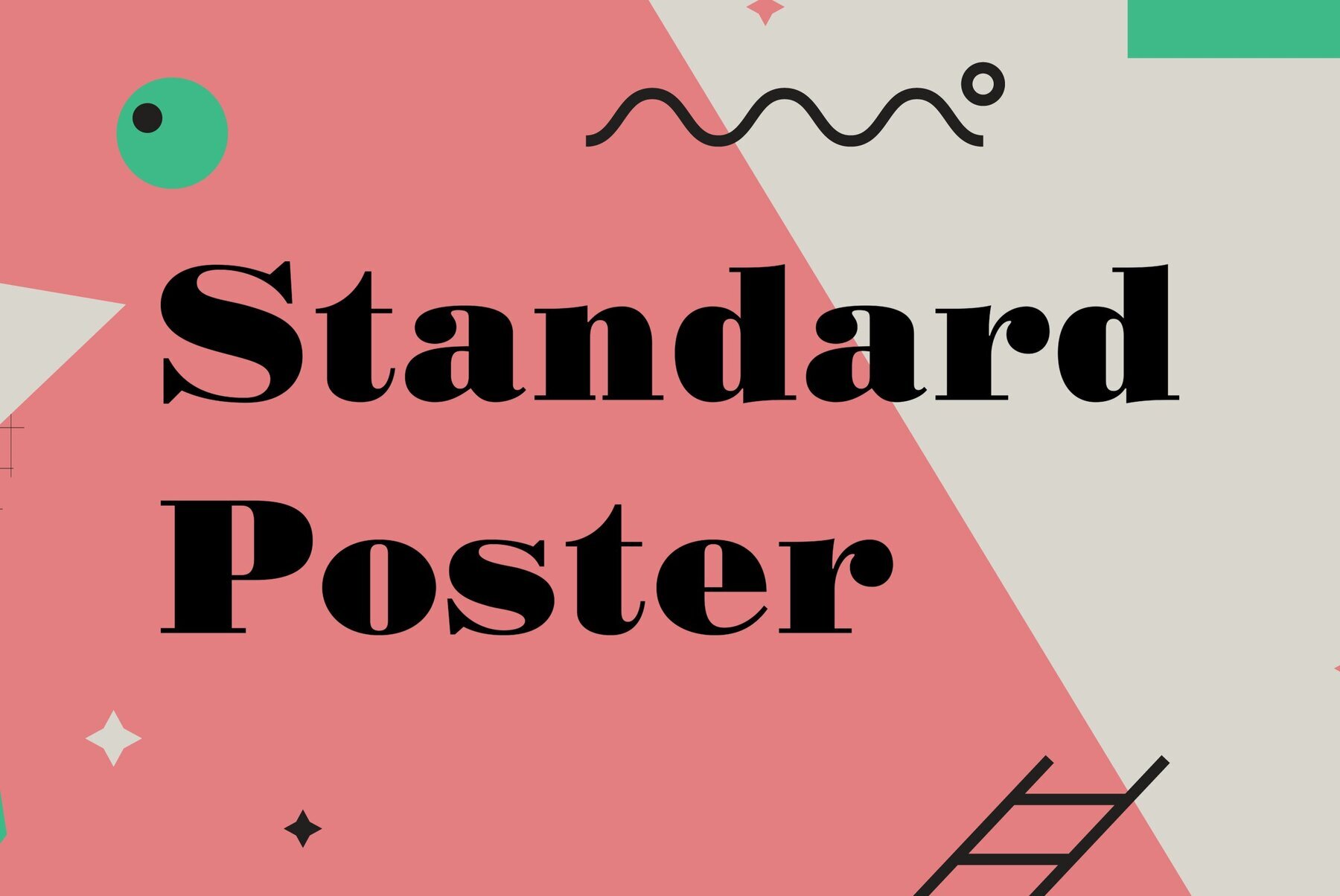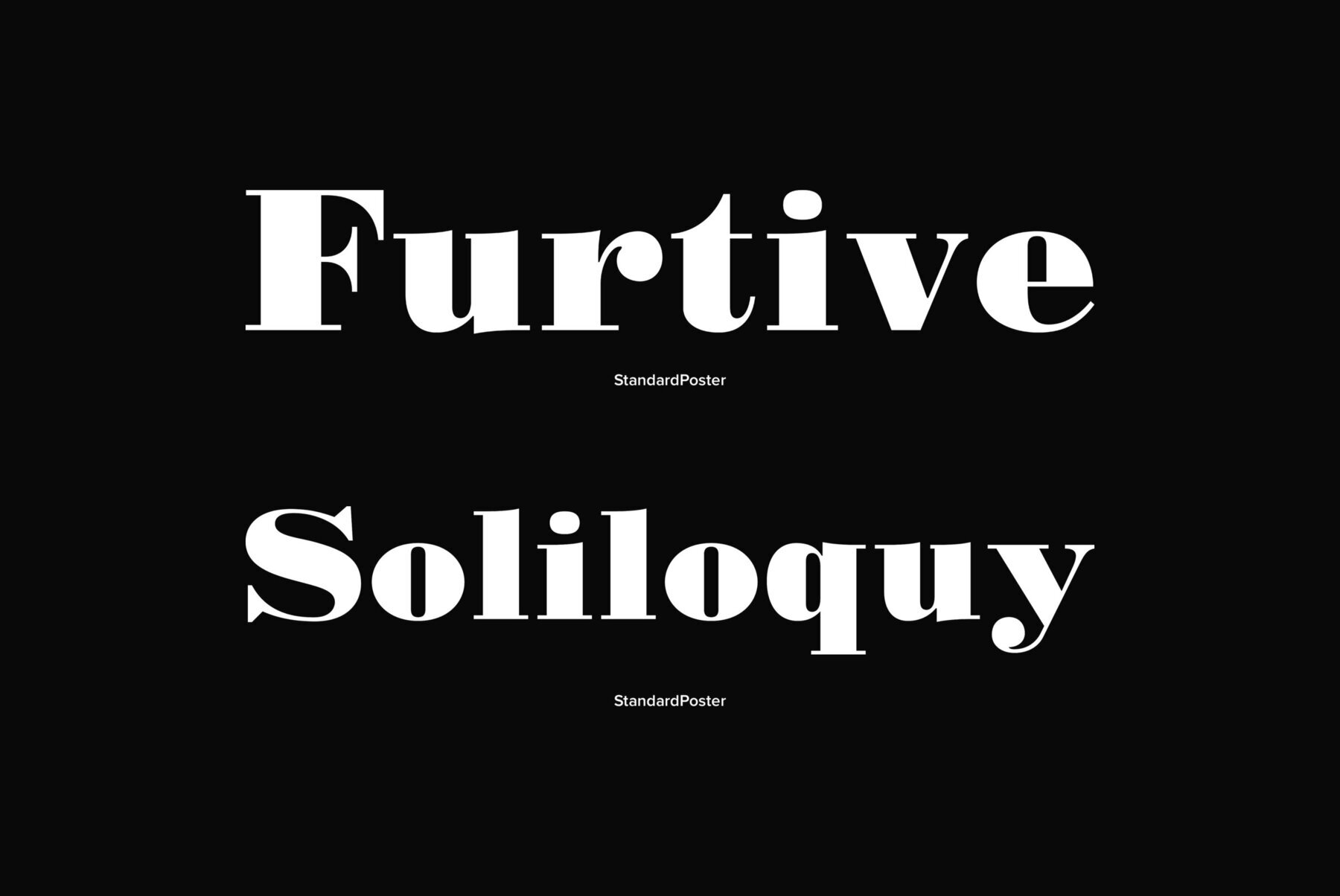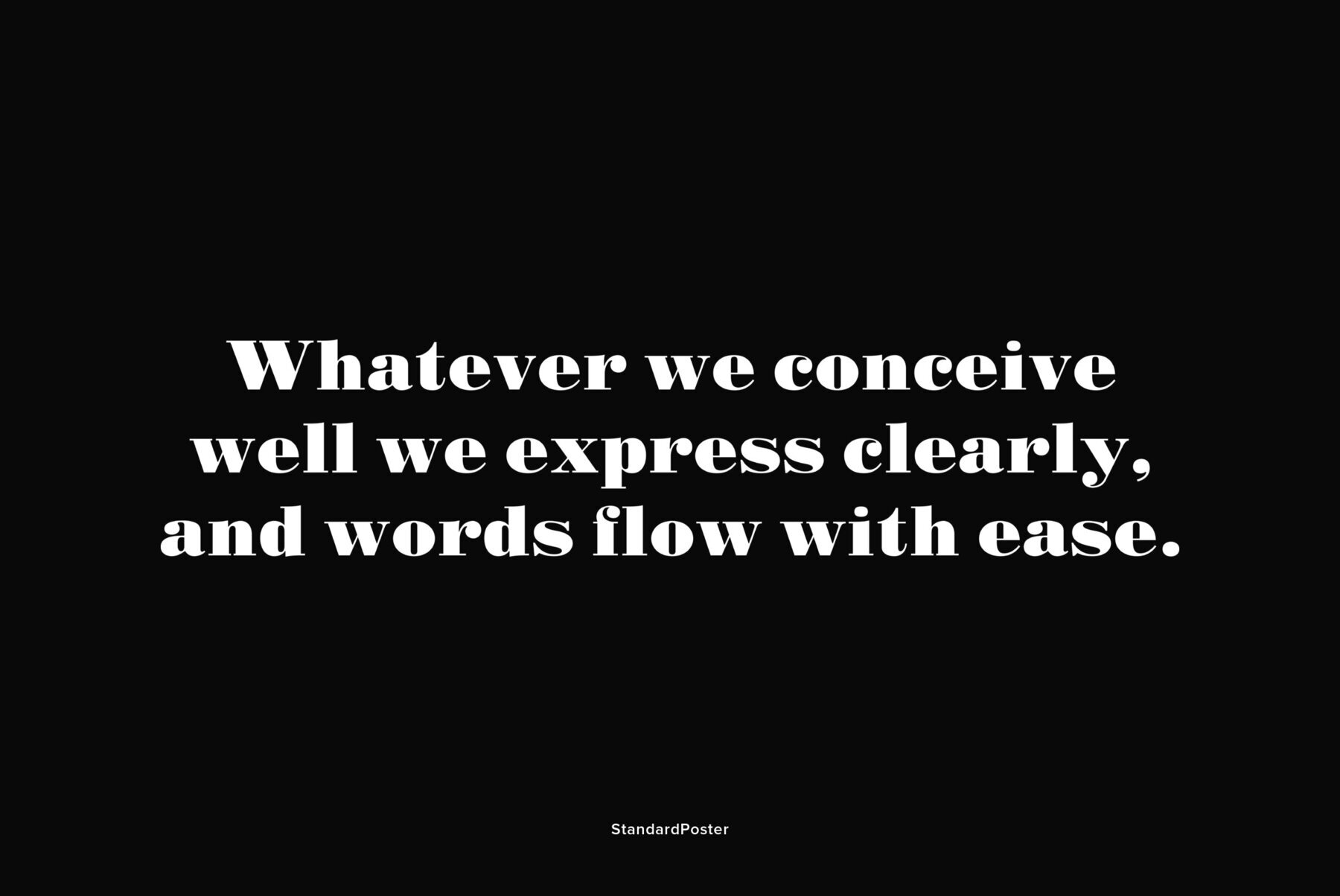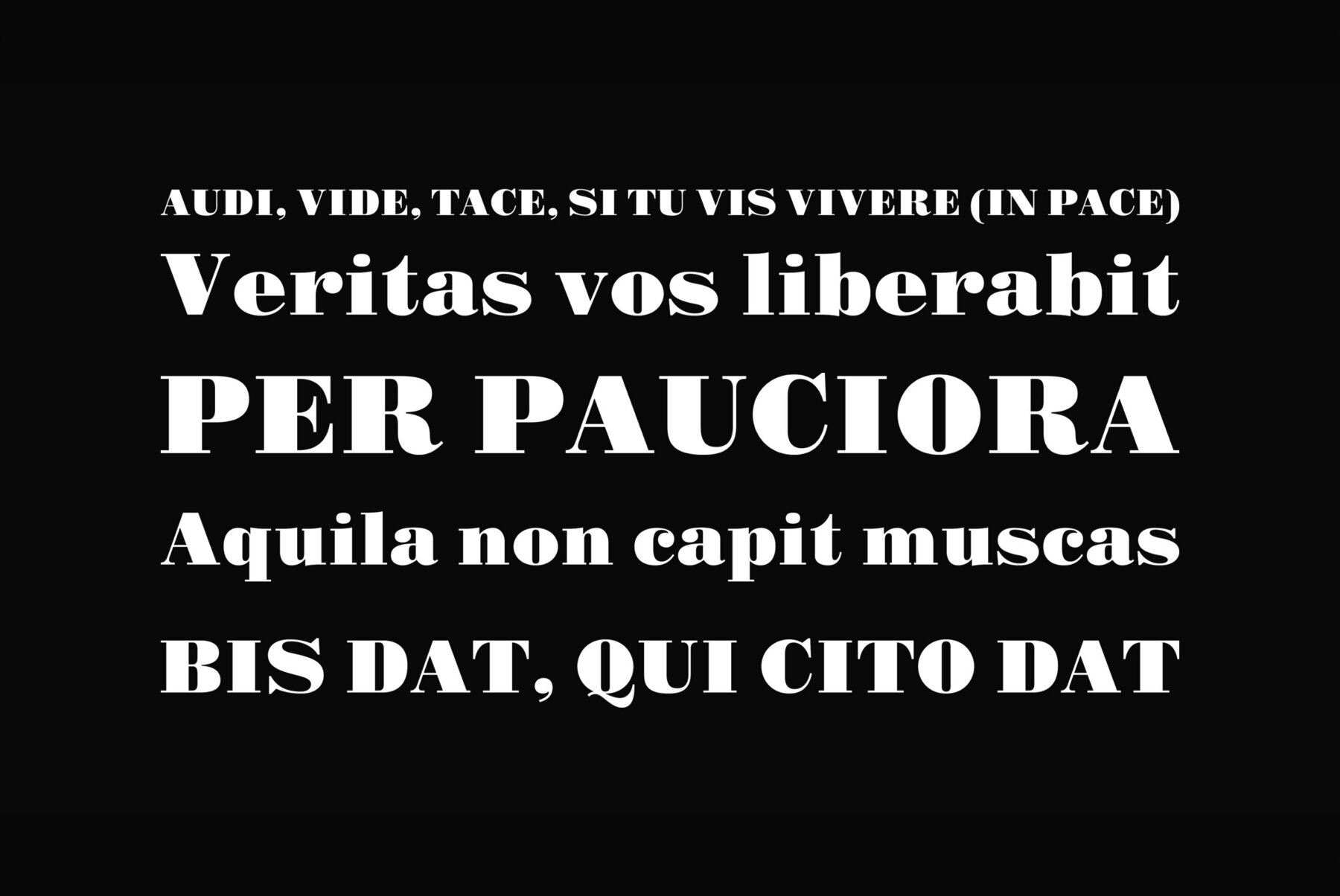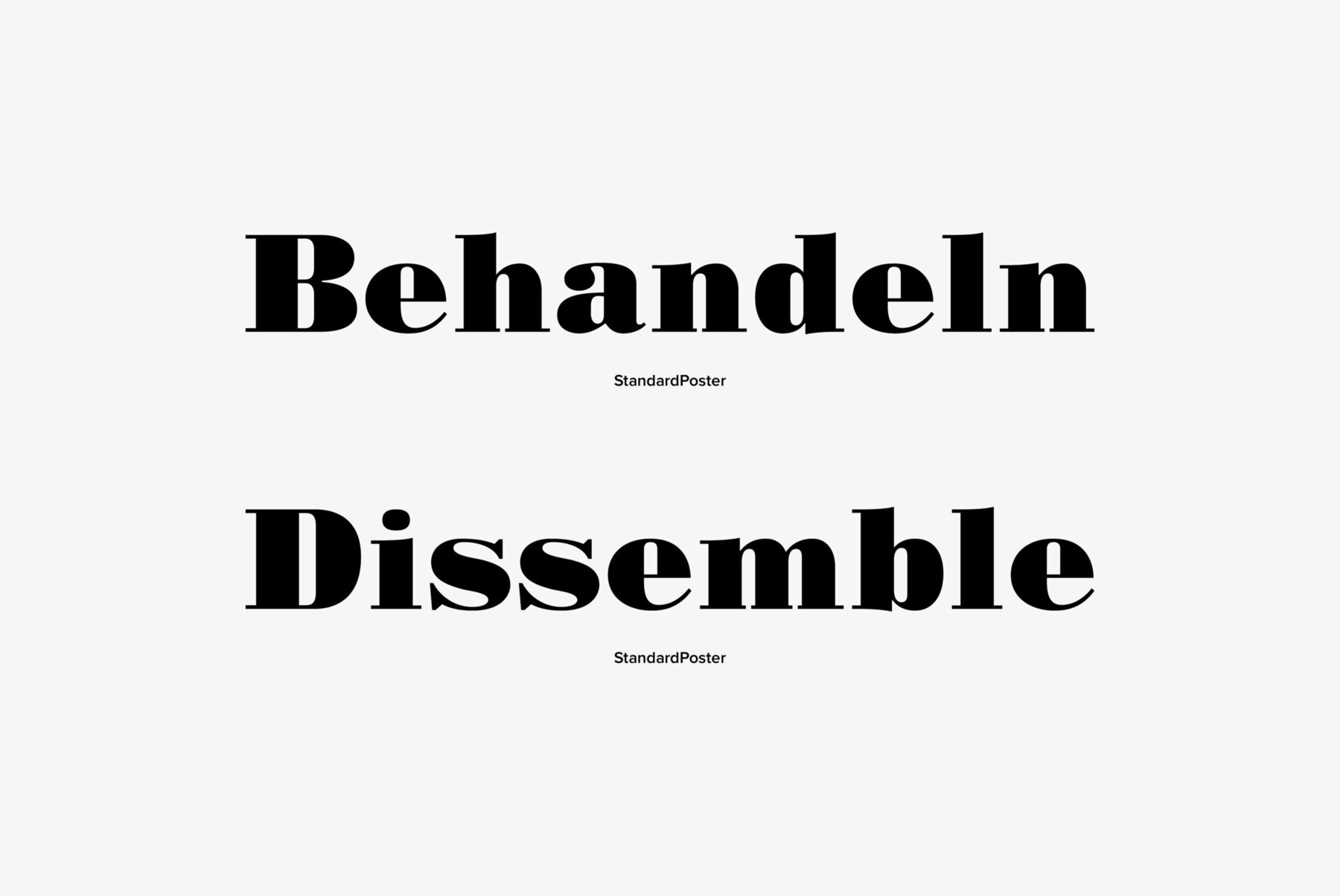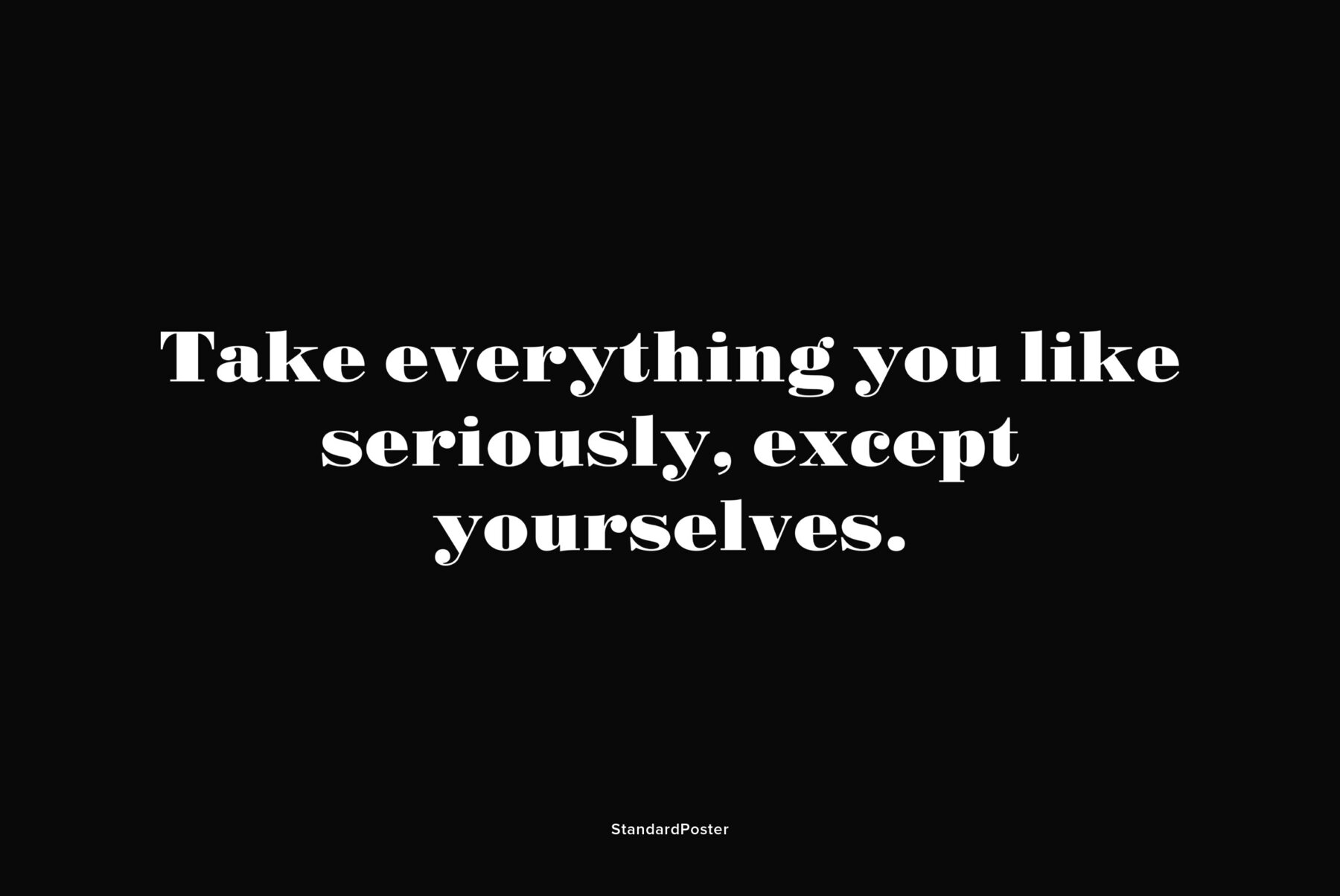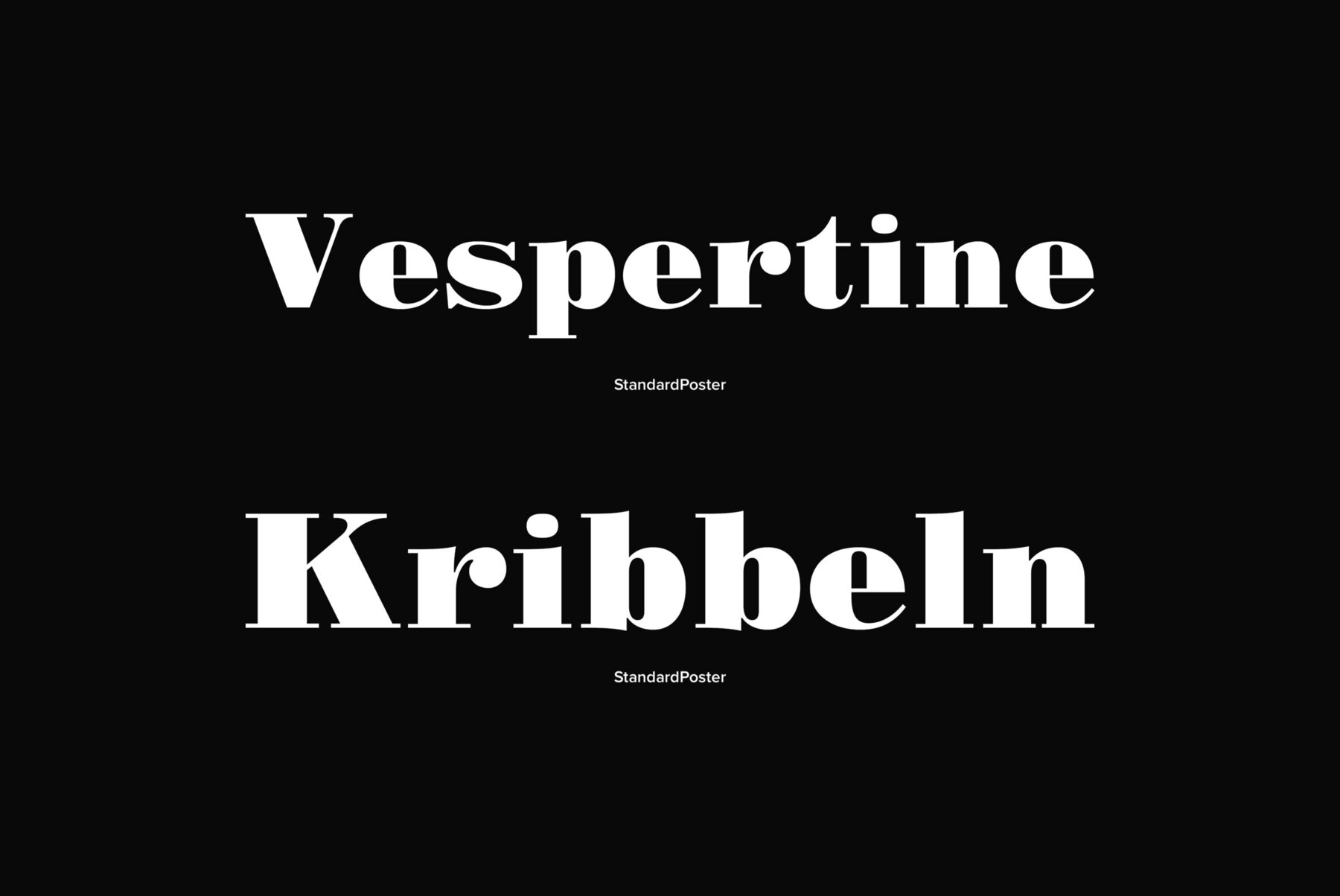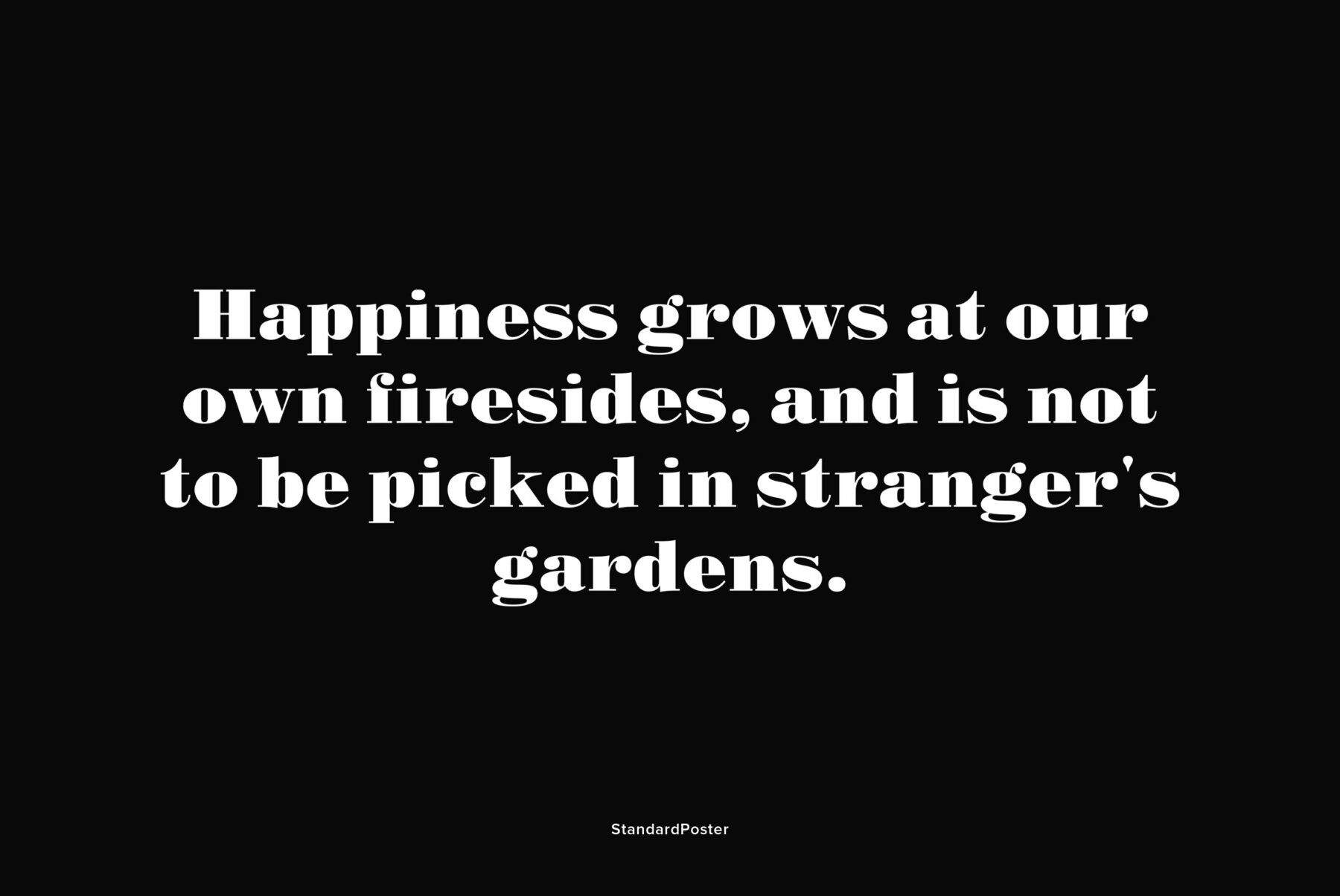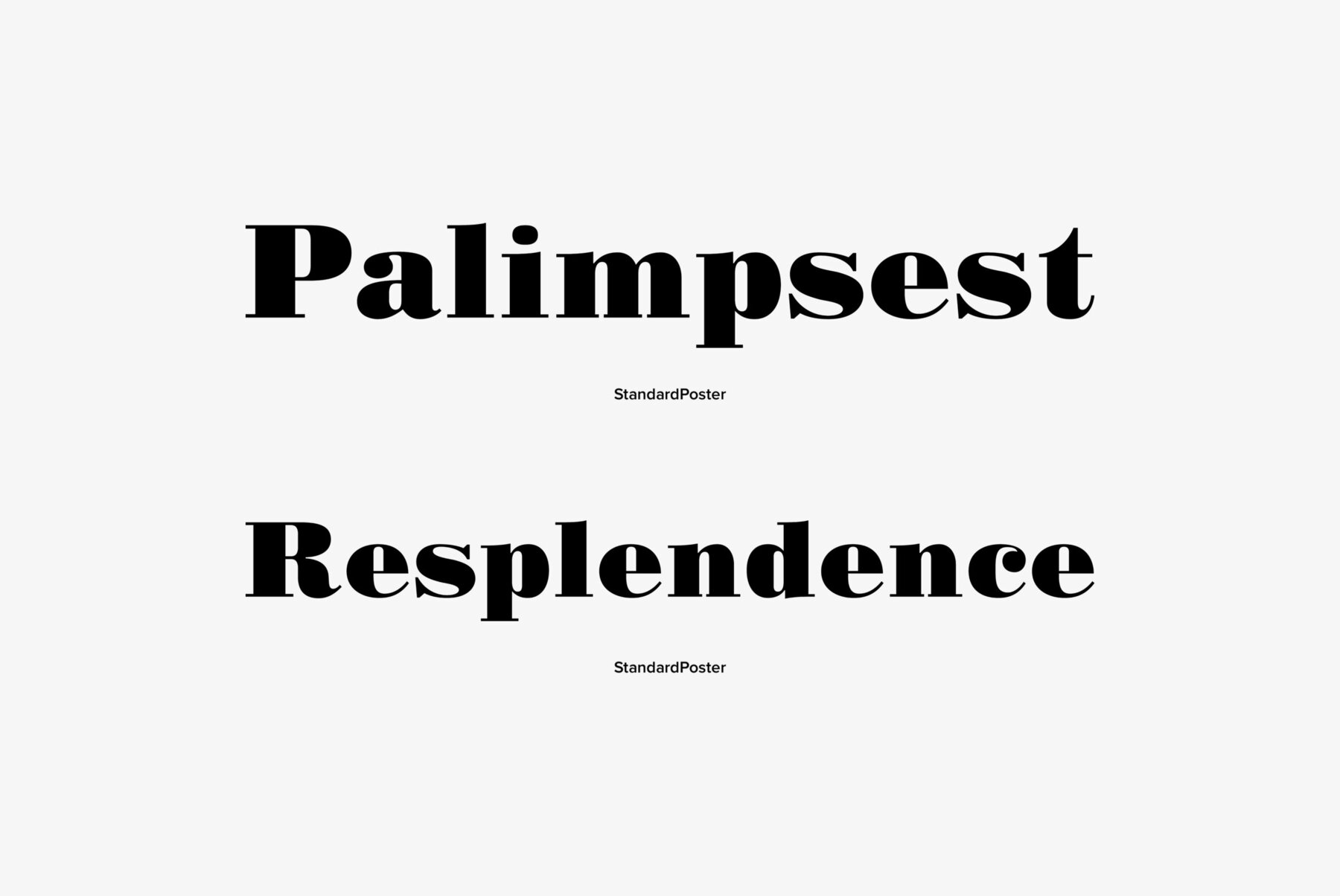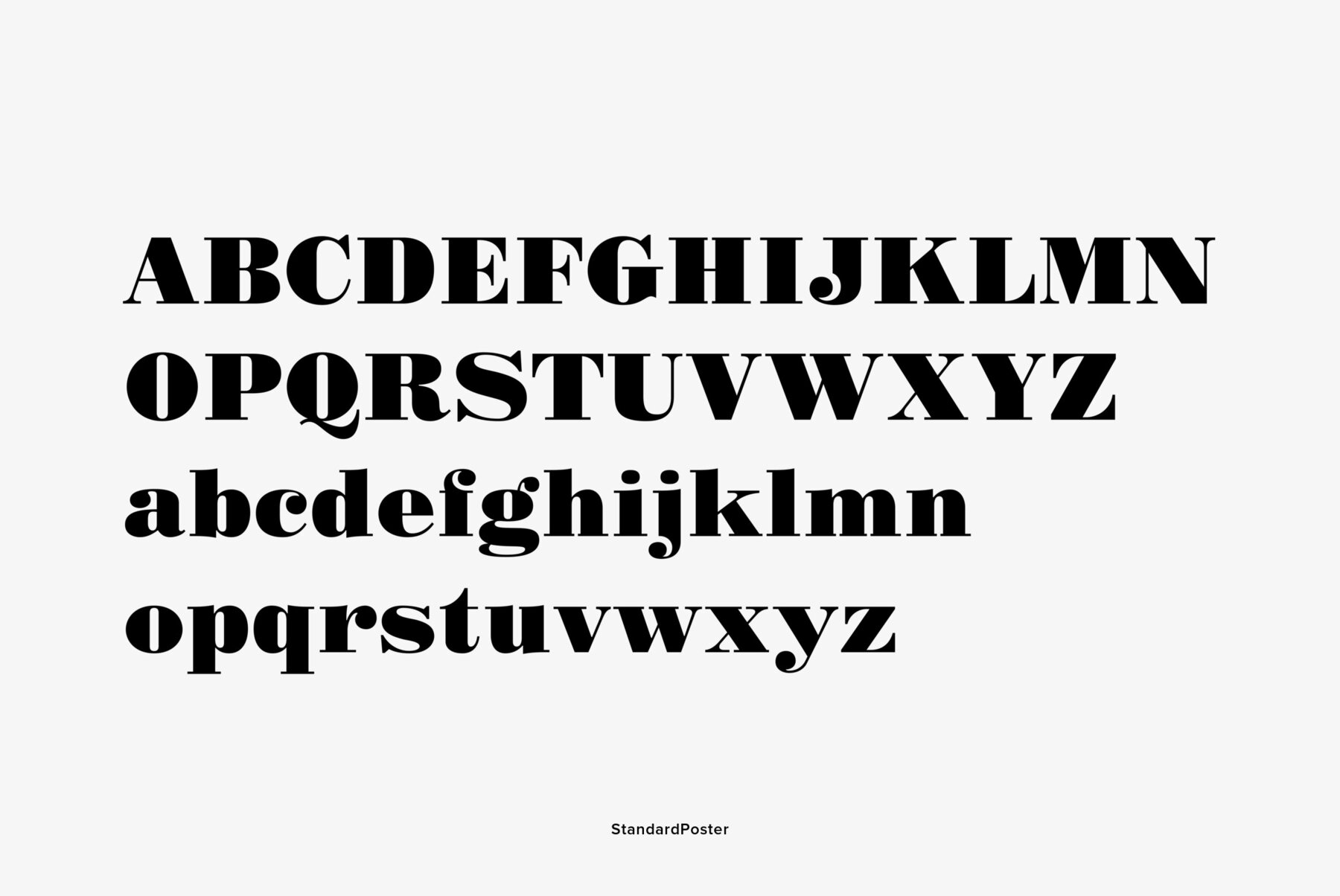
Designed at Polygraphmash type design bureau in 1986. Based on 'English' bold styles of the Ossip Lehmann type foundry (St.-Petersburg), of mid-19th century. The digital version was developed at ParaType (ParaGraph) in 1992 by Vladimir Yefimov....
Designed at Polygraphmash type design bureau in 1986. Based on 'English' bold styles of the Ossip Lehmann type foundry (St.-Petersburg), of mid-19th century. The digital version was developed at ParaType (ParaGraph) in 1992 by Vladimir Yefimov. For use in advertising and display typography.